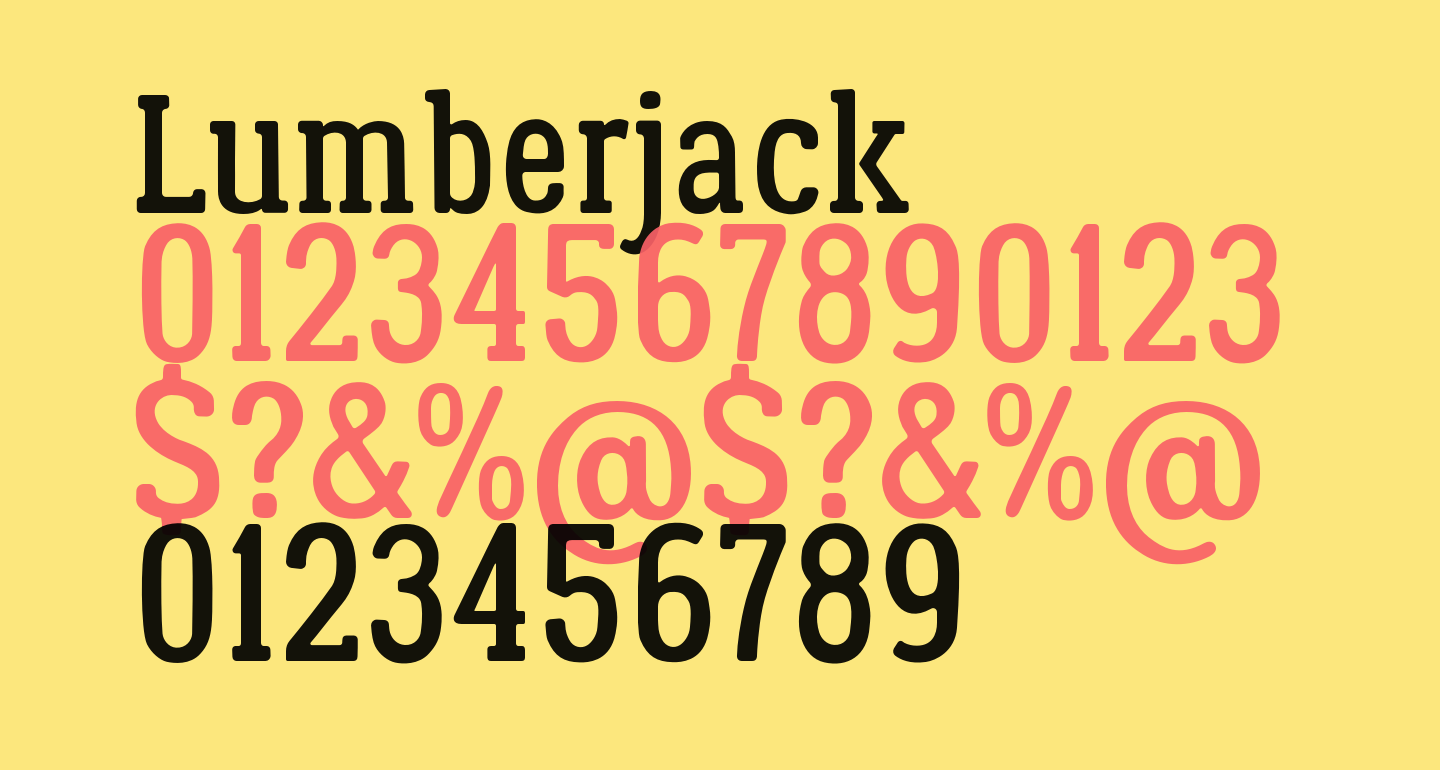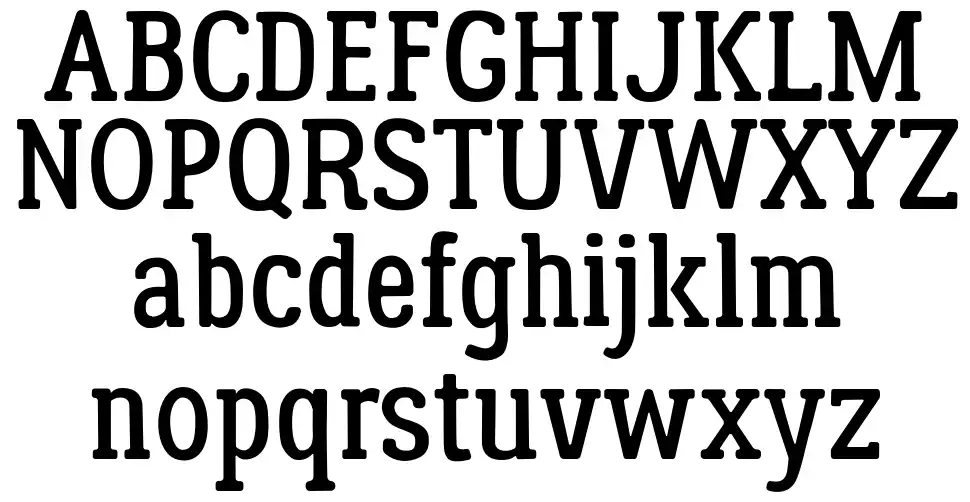
Lumber Jack Font . The slab serif font family is available in four styles: This font is free for personal (demo). Click now to create a custom image with your own words that you can download. Free download of lumberjack font. Regular, rough, inline and shadow and supports multiple languages. Lumberjack is a free wild slab serif based typeface including four different font styles (regular, rough, inline and shadow) and providing multilanguage support. Lumberjack is a free display font designed by aleksei kalinin from russia. Download free for commercial use. The lumberjack font has been downloaded 35,030 times. You can use this font for. Hello there, thanks for downloading my free font. Download and install the lumberjack font by jovanny lemonad.
Lumber Jack Font Lumberjack is a free wild slab serif based typeface including four different font styles (regular, rough, inline and shadow) and providing multilanguage support. The lumberjack font has been downloaded 35,030 times. Free download of lumberjack font. Lumberjack is a free display font designed by aleksei kalinin from russia. Hello there, thanks for downloading my free font. This font is free for personal (demo). Lumberjack is a free wild slab serif based typeface including four different font styles (regular, rough, inline and shadow) and providing multilanguage support. You can use this font for. Click now to create a custom image with your own words that you can download. The slab serif font family is available in four styles: Download and install the lumberjack font by jovanny lemonad. Regular, rough, inline and shadow and supports multiple languages. Download free for commercial use.